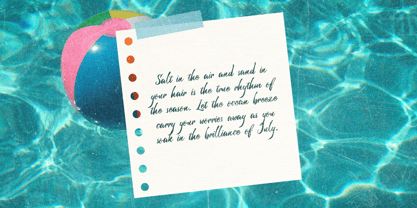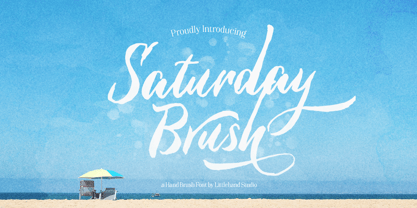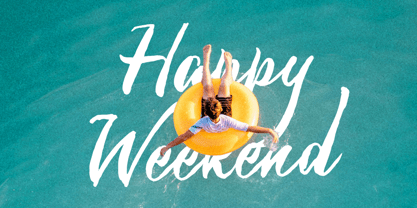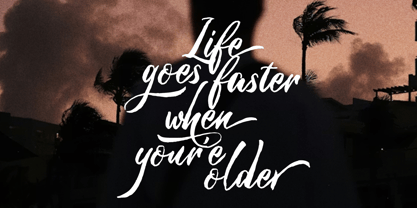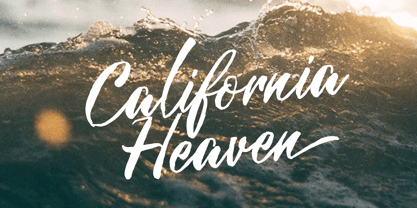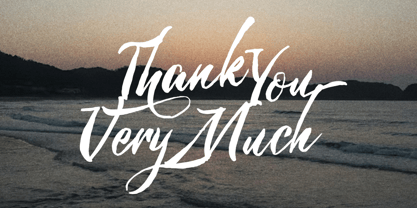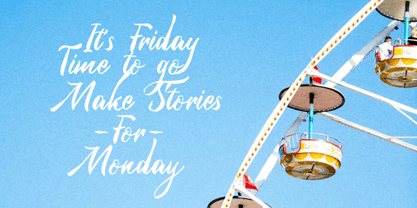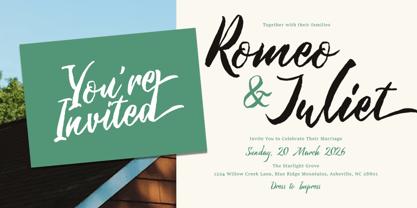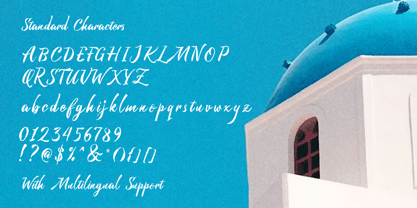
Saturday Brush
by Littlehand
Saturday Brush is that carefree weekend energy turned into lettering. With loose hand-brushed strokes, breezy curves, and a natural flow that feels organic and lively, giving designs that easygoing coastal mood—like salty air, bright skies, and slow mornings by the shore. Features : Uppercase & lowercase Numbers and punctuation Alternates & Ligatures Multilingual Support PUA encoded